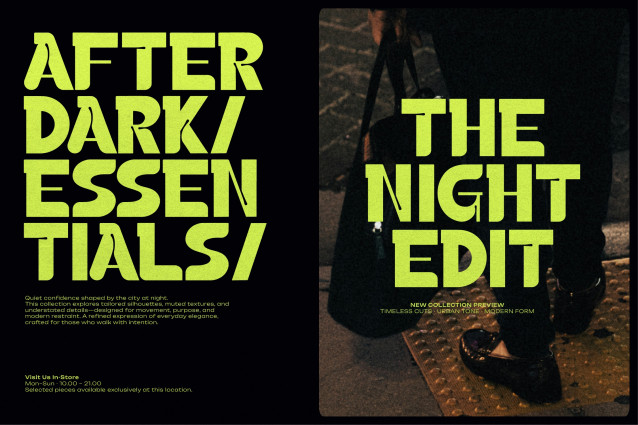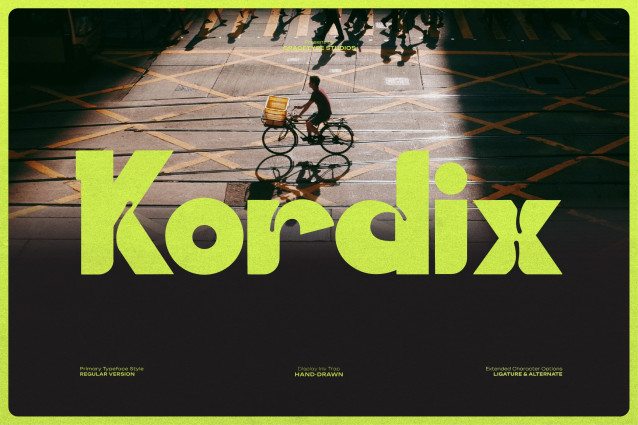
Kordix Font
Kordix Font | Display Hand Drawn, from Gracetypestudio, suitable for any projects such as: logos, branding projects, homeware designs, product packaging, mugs, quotes, posters, shopping bags, t-shirts, book covers, name card, invitation cards, greeting cards, label, photography, watermark, special events, and all your other lovely projects that need a Hand Drawn taste.